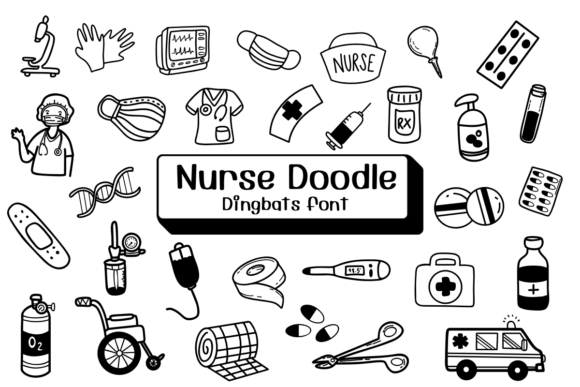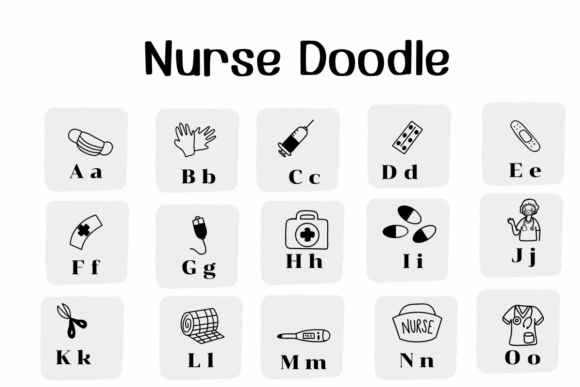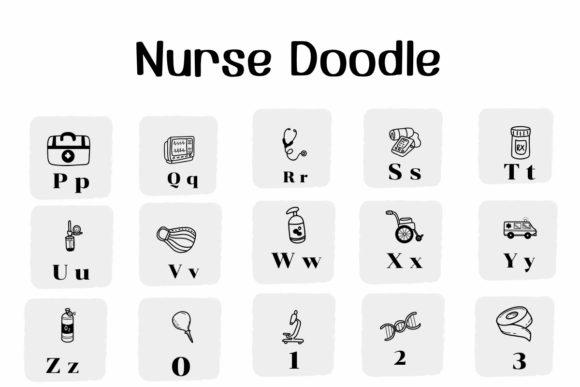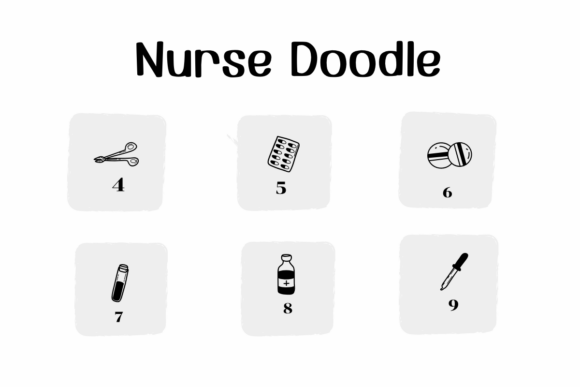
Nurse Doodle Font
About the Nurse Doodle Font
Elevate your designs with Nurse Doodle Font, a font that combines sophistication with readability. Nurse Doodle
is a medical-themed dingbat font featuring a variety of hand-drawn healthcare icons, including stethoscopes, bandages, syringes, and more. Perfect for nursing-themed projects, medical presentations, educational materials, or healthcare-related designs, this font adds a playful and professional touch to your work.
Nurse Doodle’s playful yet professional style makes it ideal for headlines, short text blocks on posters or brochures, and even social media graphics related to healthcare. It works exceptionally well in branding for pediatric clinics or playful medical organizations, adding a friendly, approachable touch. However, its intricate detail makes it unsuitable for body text or UI elements where readability is paramount.
For effective pairings, consider pairing Nurse Doodle with a clean sans-serif like Open Sans for body copy, creating a balanced contrast between the playful icons and a legible text face. Alternatively, a classic serif like Garamond could add a touch of sophistication to more formal healthcare communications.
The overall personality is approachable and friendly, making it suitable for brands aiming for a relatable, humanized image in the healthcare space. Avoid pairing it with overly geometric or overly serious fonts; keeping the pairings light and somewhat informal best suits its charm.
Nurse Doodle Font Usage Examples
Nurse Doodle Font Example